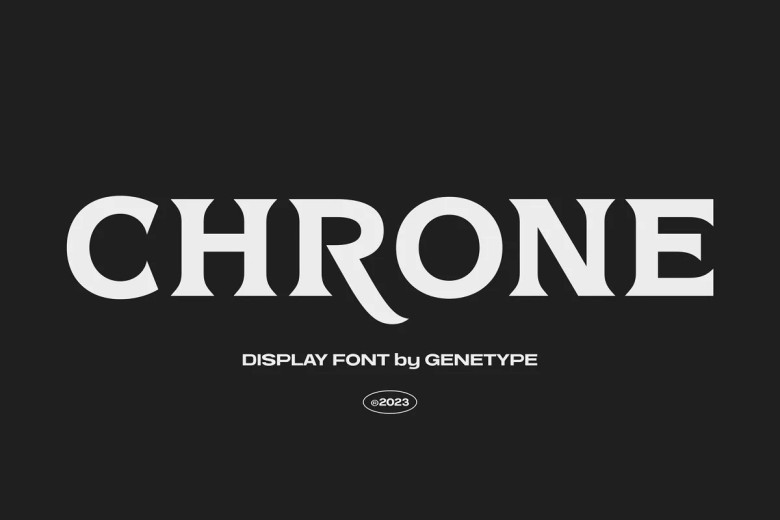
Chrone Font
Chrone Font: Extend Masculine Elegance Explore Chrone Serif’s bold serifs to add masculine style and sophistication to any design project! Use Chrone Serif to showcase sophistication and strength alike – its bold serifs create timeless logos and commanding headlines that add an additional masculine edge to designs.
Chrone Serif Font